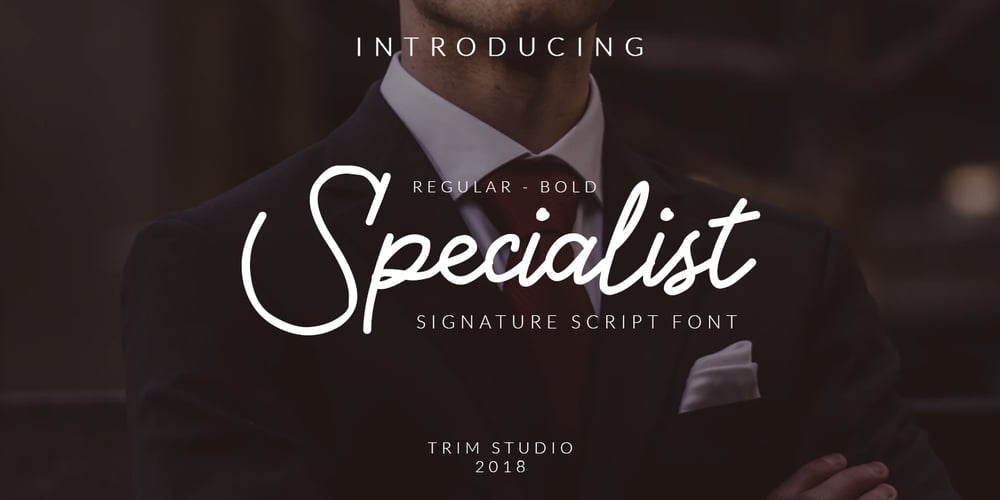
Specialist
Specialist font
Specialist Font Family was designed by Deri Kurnia and published by Trim Studio. Specialist contains 2 styles and family package options. The Specialist is a beautiful signature script. It has a great readability and is perfect for adding a striking, yet elegant look to your designs.The two included styles are perfect for signatures, branding, wedding invites, business cards, quotes, travel designs, playful events and more!Its perfectly suited for crafter and graphic artist to complete their design such as invitation, advertisement, poster, logo, birthday, product sign, and many more!The Specialist Font is also Lightweight and contains All Standard glyphs and punctuations and can be used beside any font.